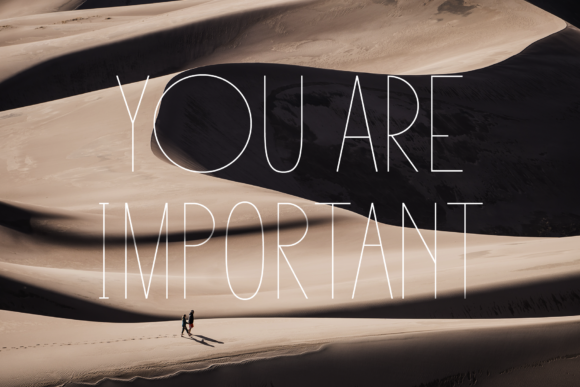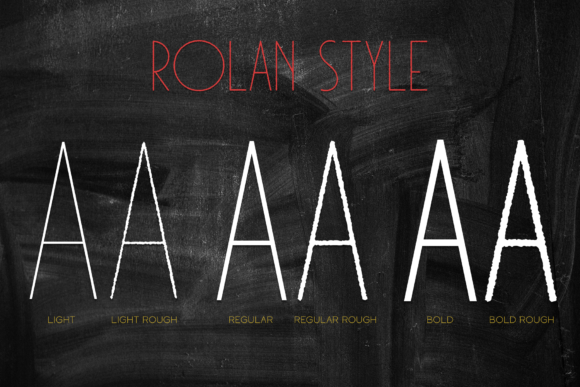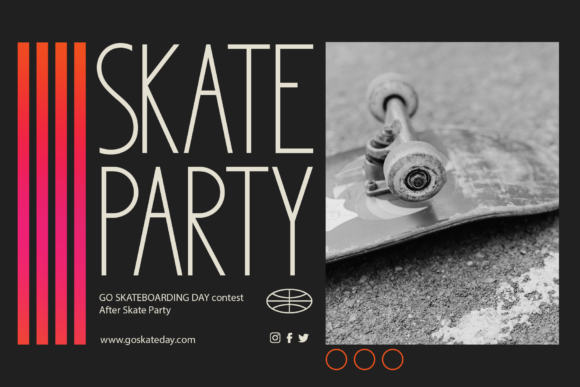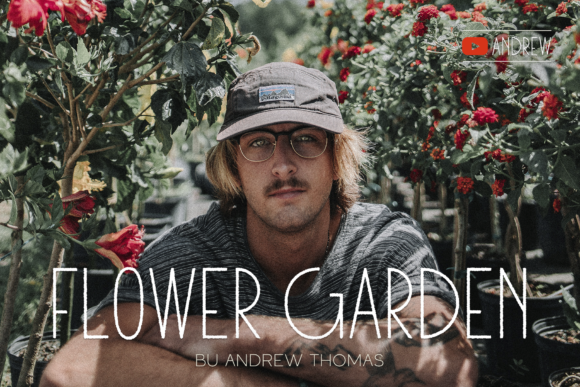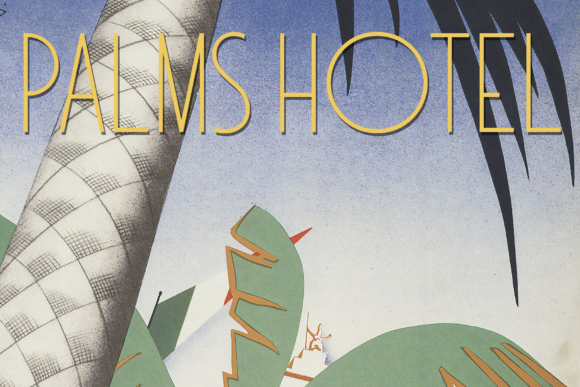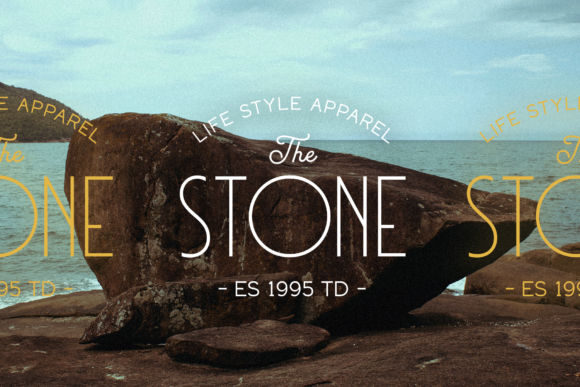
Introduction to Rolan Font
Have you ever found yourself staring at a blank canvas, trying to bring a creative project to life, only to be stuck on the perfect font to match your vision? This is a moment we’ve all been in – the moment of truth when our design dreams are put to the test.
Imagine a font that not only adds a touch of elegance to your design but also exudes a sense of simplicity and sophistication. Welcome to the world of Rolan Font, a sleek and modern sans serif font that’s perfect for designers looking to add a minimalist touch to their creative projects.
Key Features of Rolan Font
- High-quality design resource ideal for use in various design applications, including graphic design and digital art.
- Features a unique, modern design aesthetic with a range of styles and weights to suit various creative needs.
- Perfect for use in logos, typography-based designs, and other creative projects where a distinctive font is required.
Honest Review: Rolan Font
I recently had the chance to work with the Rolan Font, and I must say, it’s been a game-changer for my creative project. As a designer, I’m always on the lookout for high-quality design resources that can elevate my work, and the Rolan Font definitely delivers.
- ✨ The font’s unique style and versatility make it perfect for a wide range of creative projects, from logos to typography-based art.
- ⚠️ The font’s scalability can be a bit wonky at smaller sizes, which may require some tweaking to get right.
Overall, I’m thoroughly impressed with the Rolan Font. It’s a solid addition to any designer’s toolkit, and I highly recommend it for anyone looking to take their creative projects to the next level.
Rolan Font
The Rolan Font is a high-quality design resource perfect for any creative project. With its unique and stylish aesthetic, it’s an ideal choice for designers looking to add a touch of sophistication to their work.
Tips for Getting the Most Out of Rolan Font
To get the most out of the Rolan Font, try combining it with other design elements to create a unique and eye-catching design. You can also use the font with a transparent background to create a more modern and sleek look.
The Rolan Font is perfect for a variety of design projects, including business cards, brochures, and website headers. It’s also great for use in social media graphics and other digital design projects.